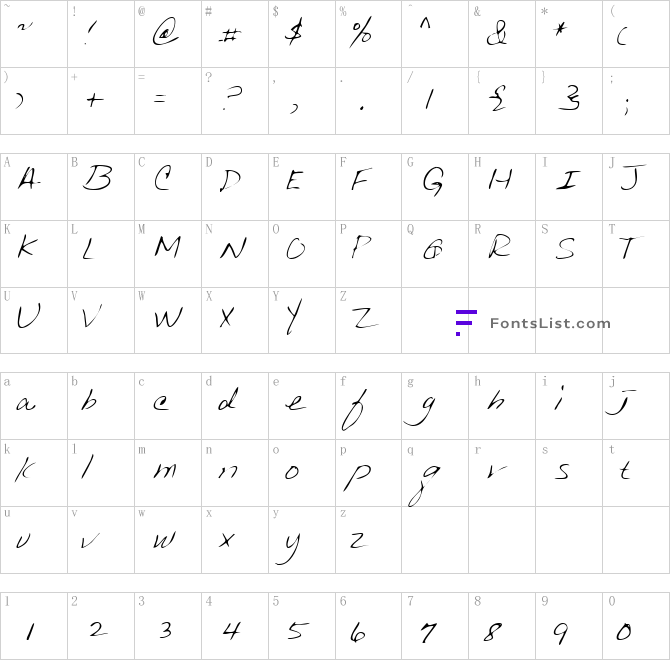
- Font Name:AnniesHand
AnniesHand-Regular.ttf is a very beautiful artistic font, AnniesHand-Regular.ttf is widely used in the design and printing of various books and pictures,AnniesHand-Regular.ttf has a strong visual impact,AnniesHand-Regular.ttf is a commonly used font in newspapers, magazines and books, and is used in posters, e-commerce Poster design, store design, logo design, font design and other fields.AnniesHand-Regular.